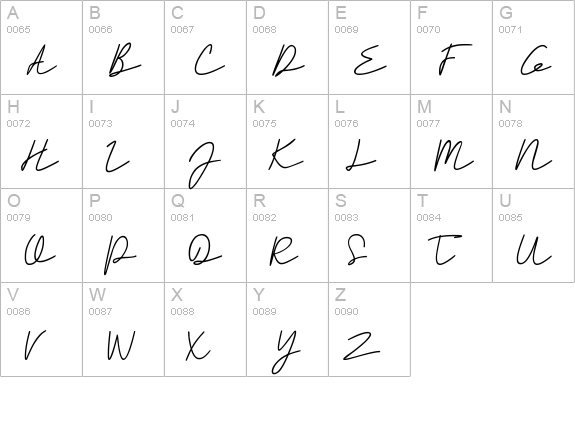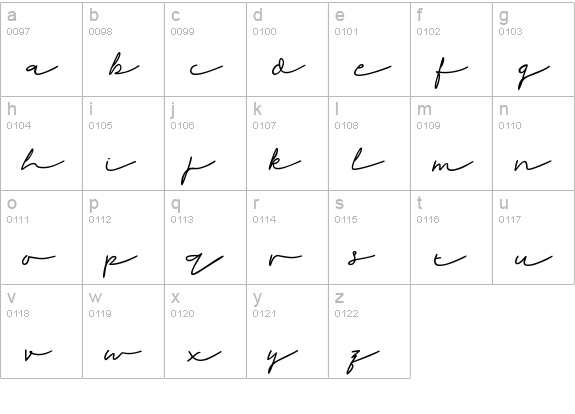
Rahayu is a free for personal use font in the Script > Handwritten category, designed by Yusron Billah. It has been downloaded 366 times and is available for Windows, Mac and Linux.
Introducing Rahayu font, a stunning typeface that exudes elegance and sophistication. This versatile font combines modern aesthetics with a touch of classic charm, making it perfect for a wide range of design projects. With its clean lines and stylish curves, Rahayu font is sure to elevate any design it graces.